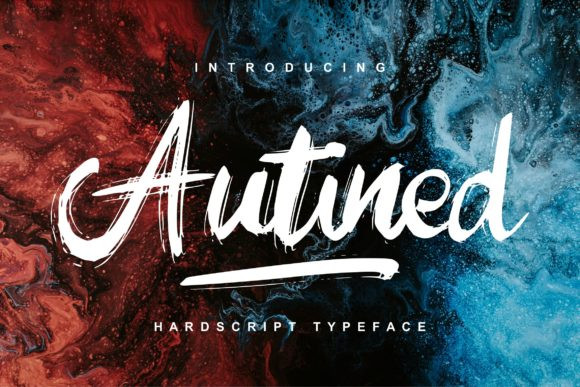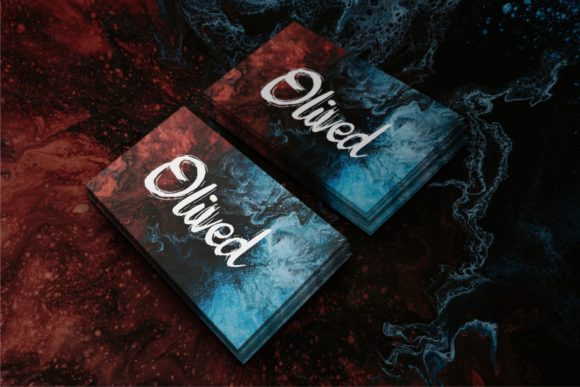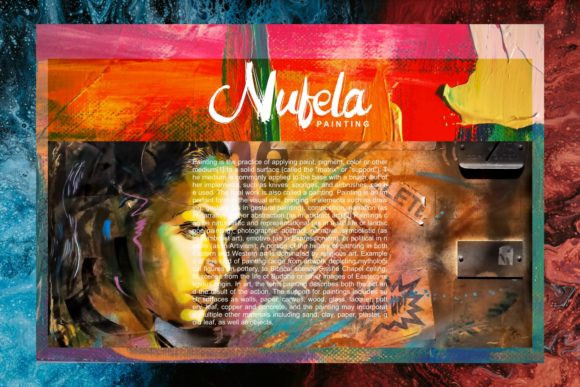
Autined Font
Autined is a great handwritten font with a calligraphy style. It is perfect for greeting cards, branding materials, business cards, quotes, posters and more!